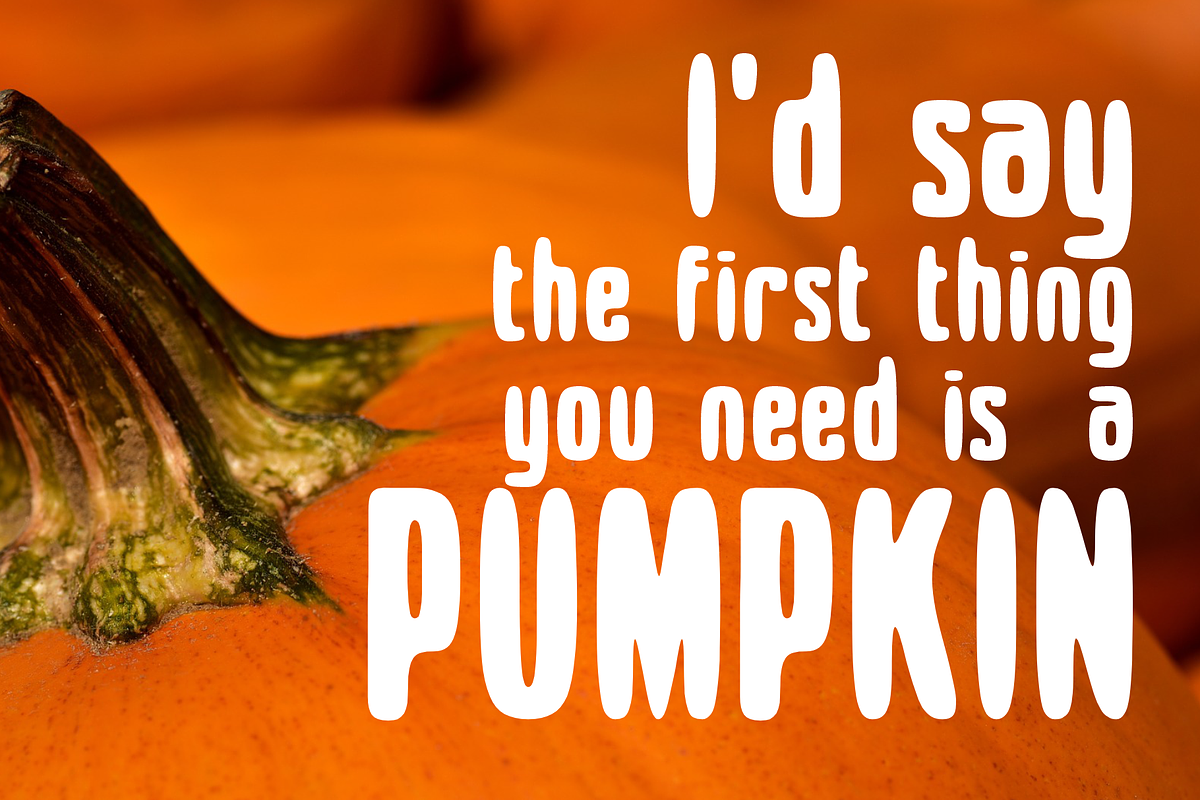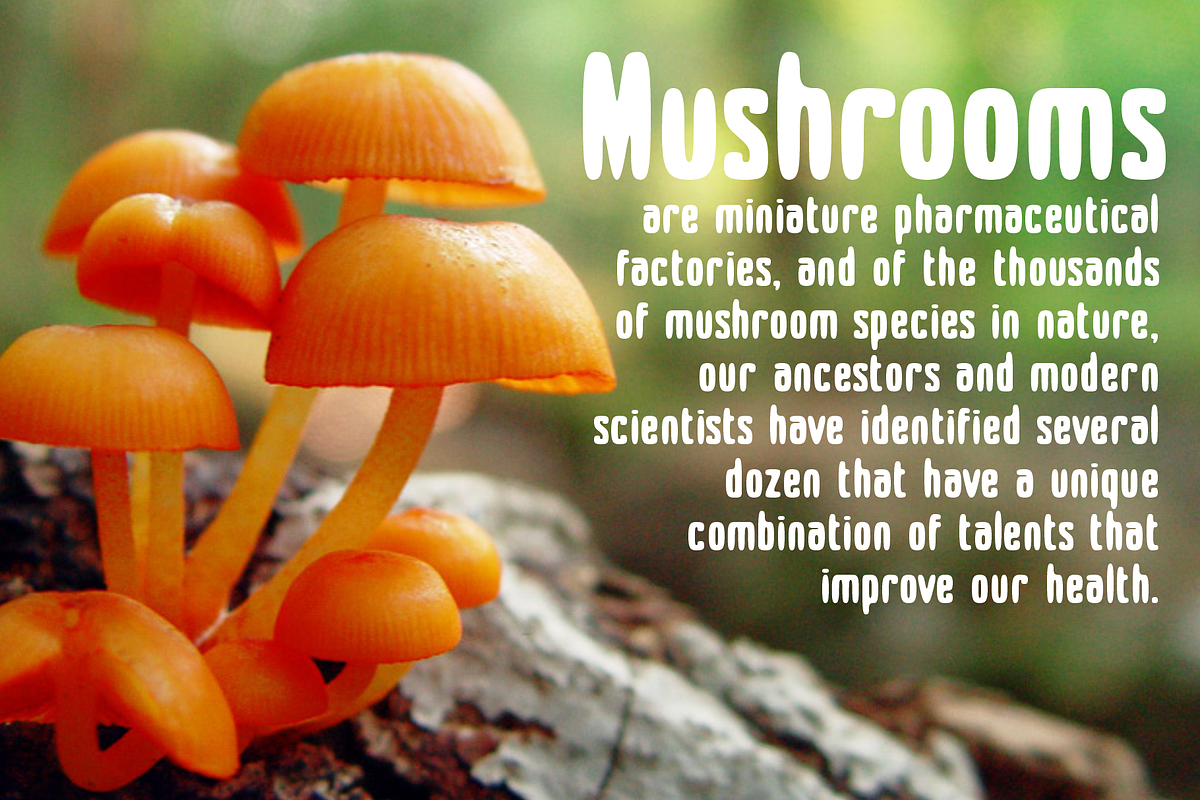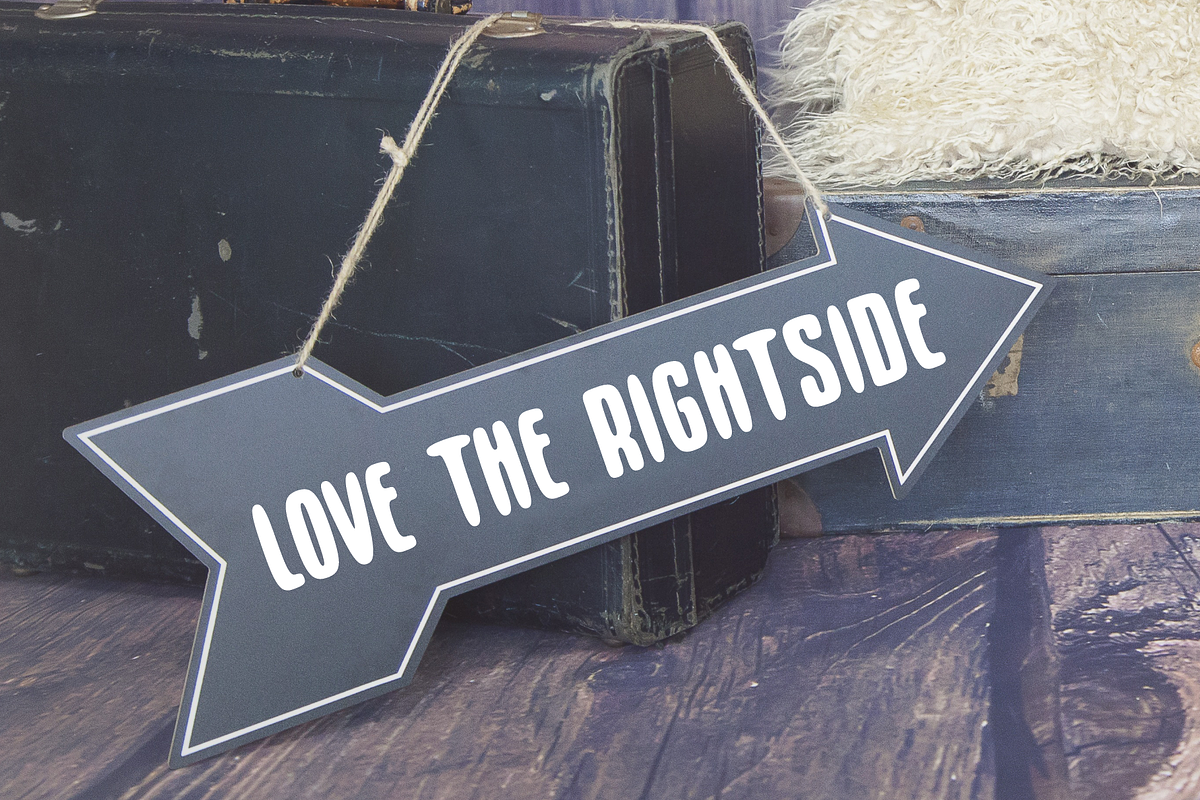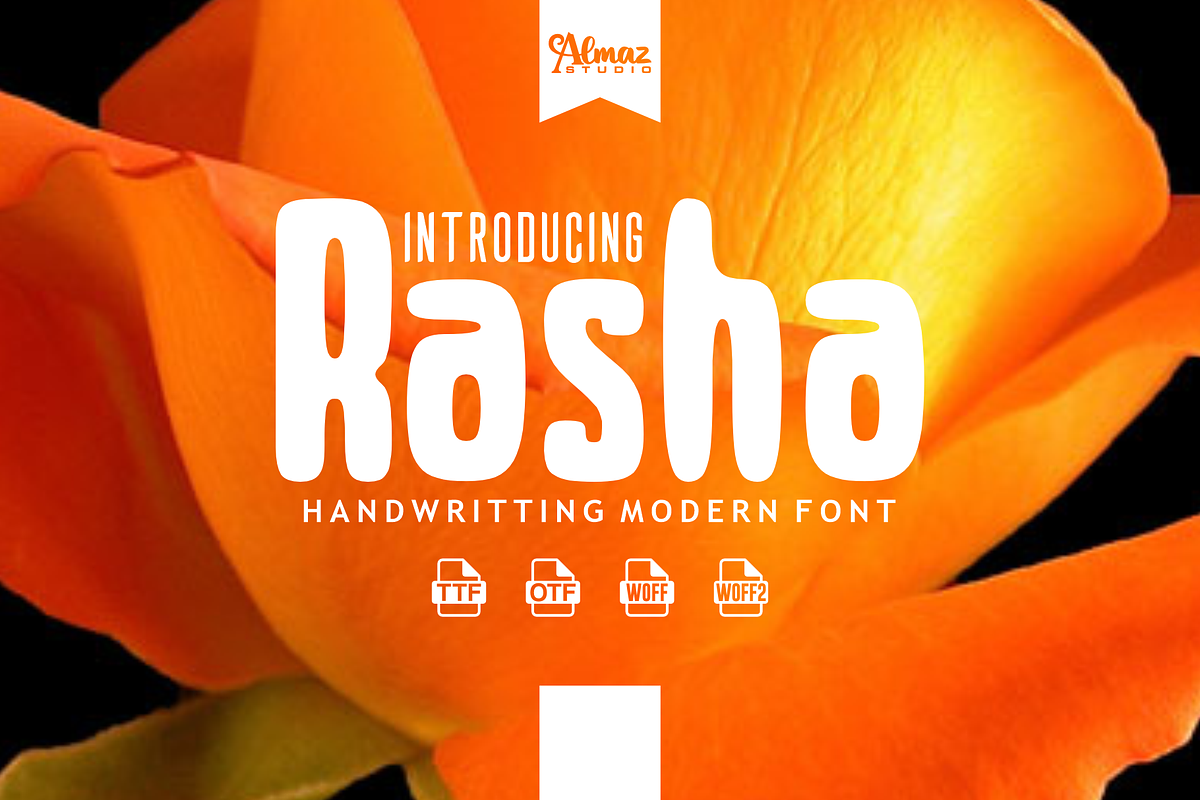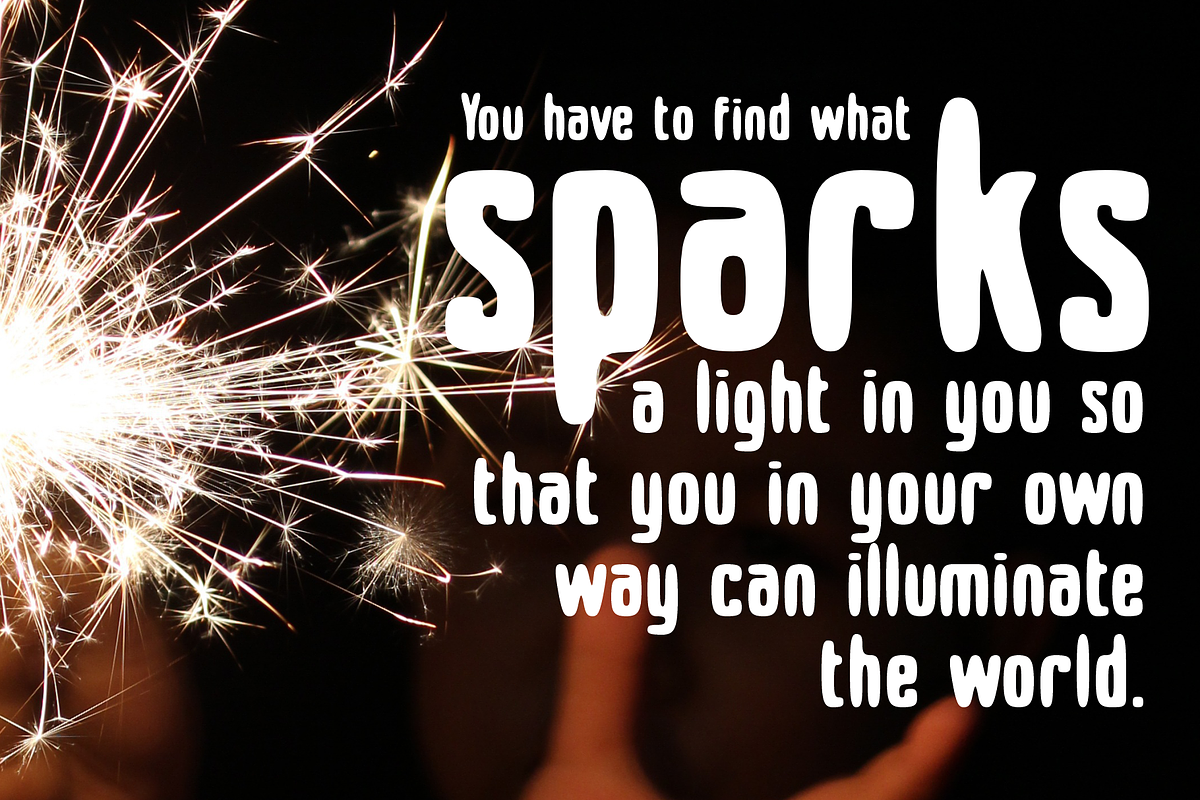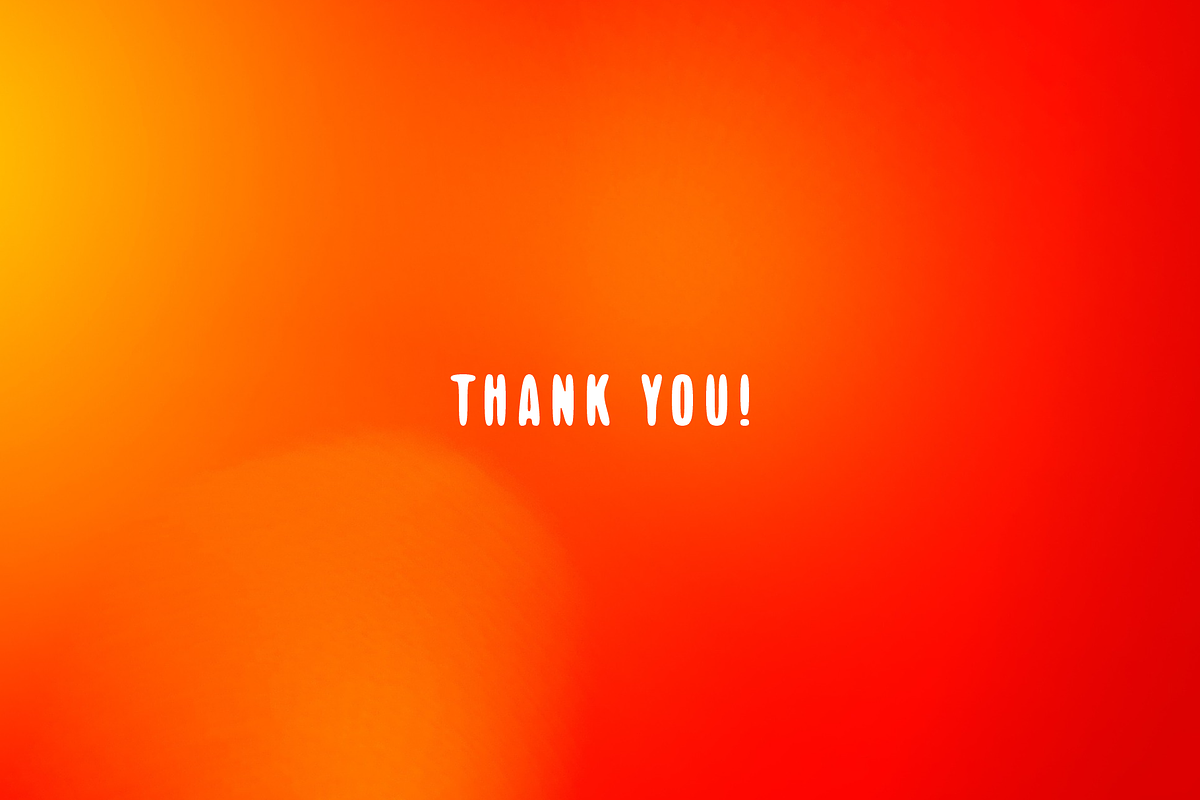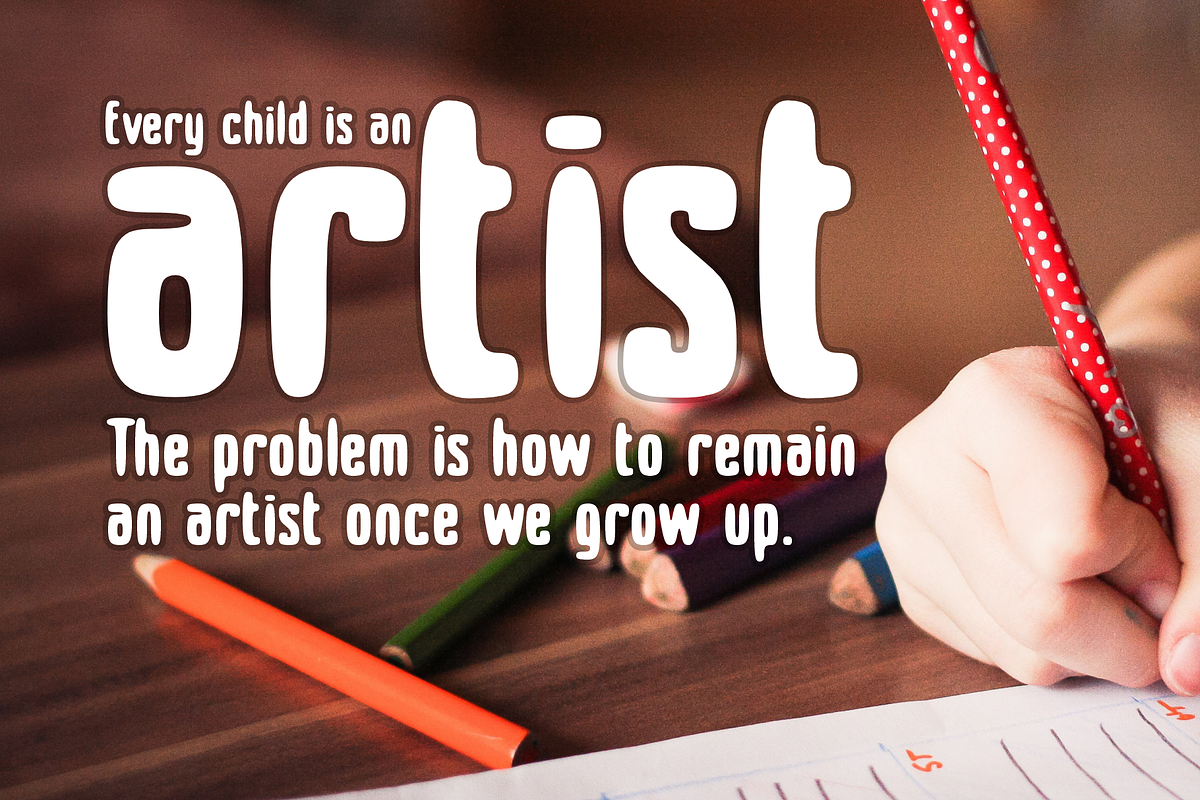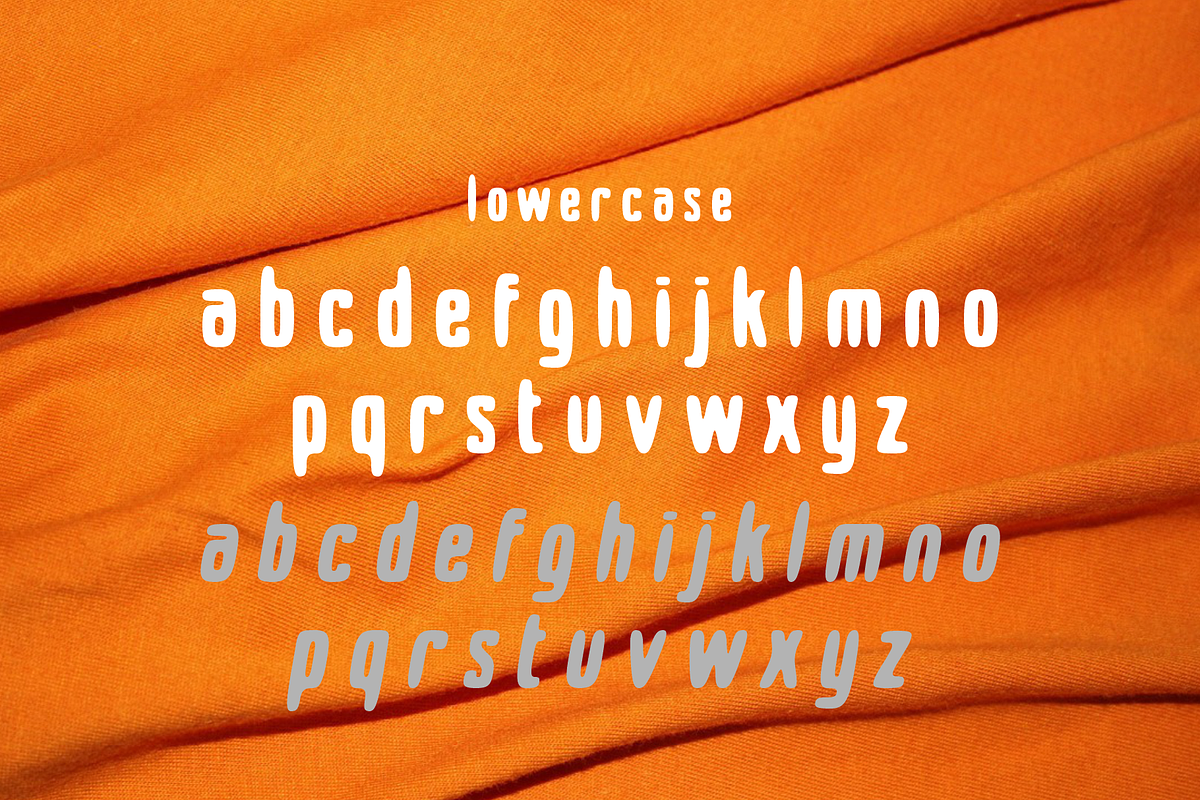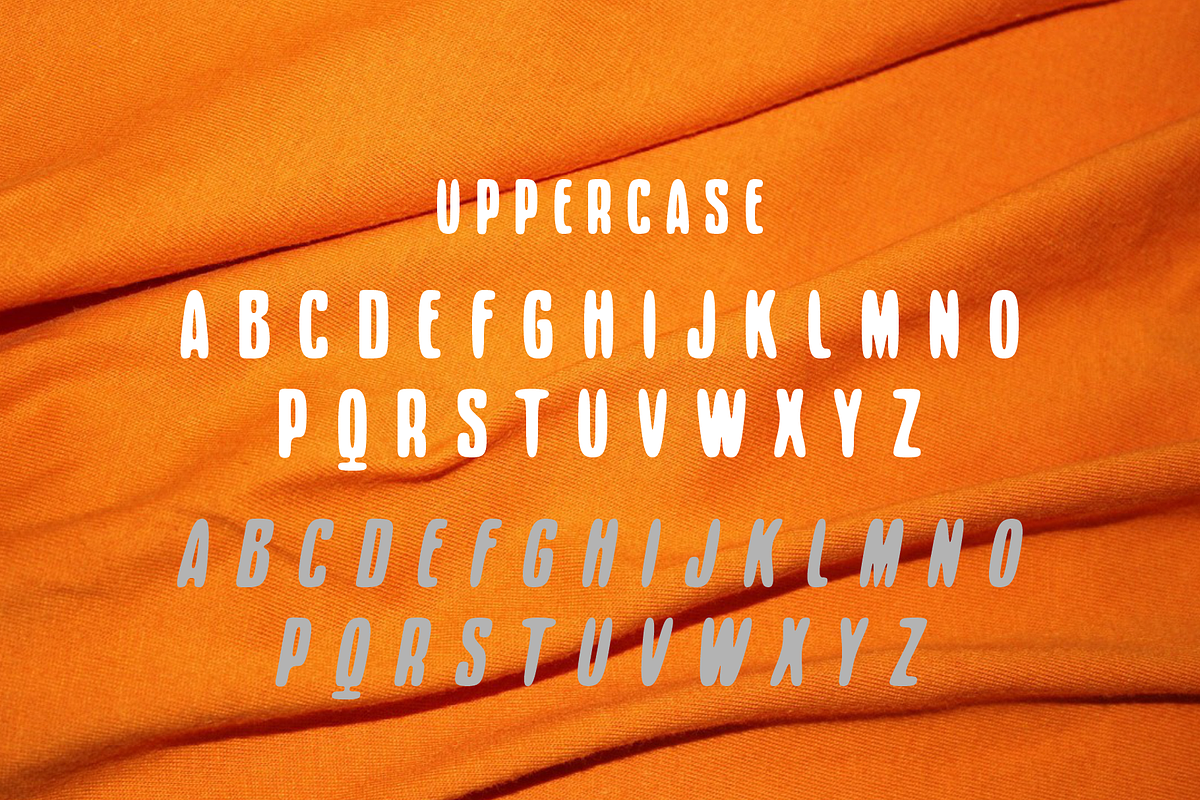
Rasha
Rasha is a Sweet and Soft Hand brushed Font. Rasha font will be a wonderful asset to your font library, as it has the potential to enhance any creation. Rasha it’s a playful sans serif font with bold and cute style for your project include uppercase & lowercase and Multilingual support really perfect for branding project like Logo, mug decorations, pottery, shirts, hats, tote bags, card making, wall art, interior prints, comic text, Book cover for children, social media post, T-shirt quotes, stationary, and handwriting comic style.
- Complete characters uppercase, lowercase, numeral, and punctuations